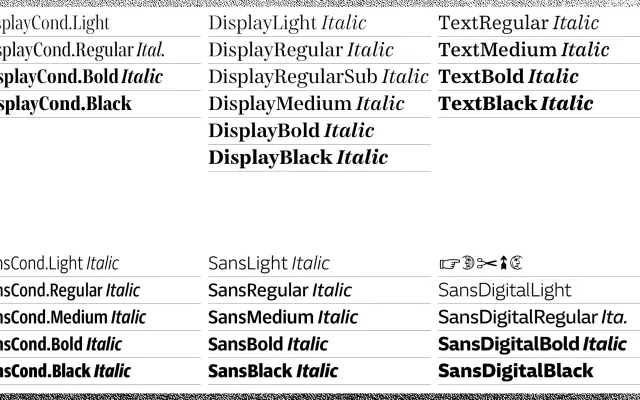
Süddeutsche Zeitung
Character Type · Henning Skibbe · 2012
A 57-style custom type system designed by Henning Skibbe for the Süddeutsche Zeitung's redesign, covering serif, sans-serif and condensed subfamilies for print and digital use.
Developed between 2012 and 2022 as part of a full redesign of one of Germany's largest daily newspapers, the system spans four main subfamilies: SZ Serif, SZ Serif Condensed, SZ Sans, SZ Sans Condensed, SZ Sans Digital and SZ Text. Each of the 57 styles carries over 700 glyphs and supports an extensive set of OpenType features including small caps, old-style figures, tabular figures and arrows. The system is deployed across all of the SZ's brand channels, from broadsheet print to web and digital platforms.
A custom type system built around serif and sans-serif subfamilies for a major daily newspaper, with the serif at its core; designed for high-performance print and screen legibility across editorial contexts.